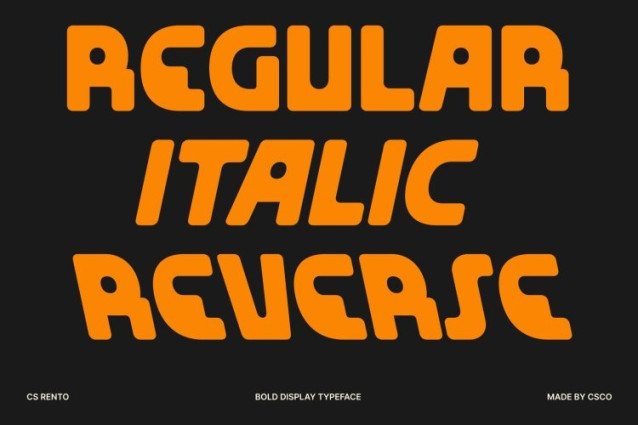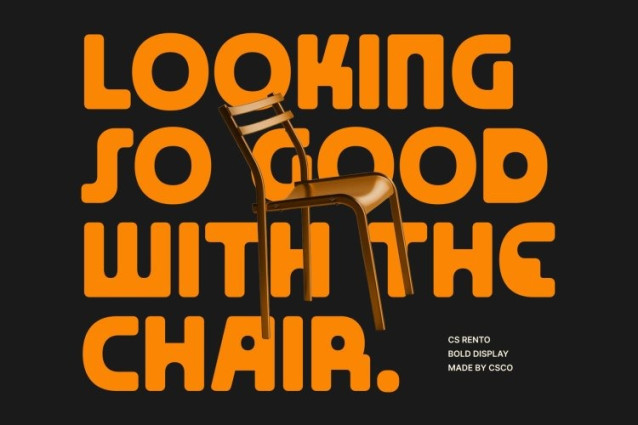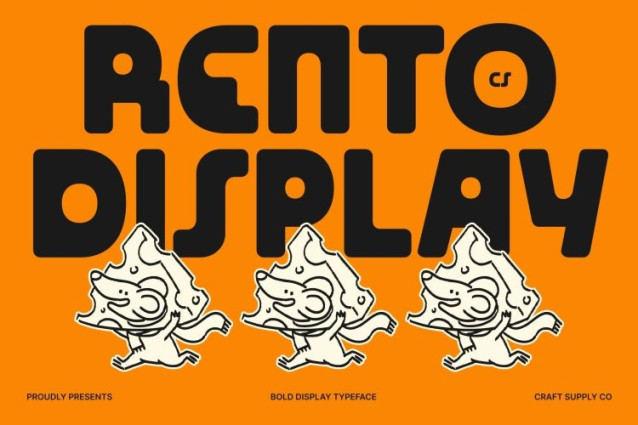
CS Rento Font
CS Rento Font This is a bold display font built from strong geometric shapes combined with smooth, soft lines. Its unique character designs create a confident visual impact, while the rounded details introduce a calming and approachable feel. This thoughtful balance allows the font to stand out clearly without appearing rigid or aggressive.
Futuristic Vibe with Modern Style
Blending futuristic influence with contemporary aesthetics, presents a clean and forward-looking appearance. The structured geometry gives it a modern, tech-inspired foundation, while the gentle curves add warmth and personality. This fusion results in a typeface that feels innovative yet friendly, perfect for modern creative expression.
Fresh, Cheerful, and Cool Impression
This font carries a fresh and cheerful personality with a cool, modern edge. Its playful geometry and softened forms create an engaging and optimistic tone, making it ideal for designs that aim to feel positive, stylish, and inviting. The font delivers energy while maintaining visual harmony.
Perfect for Titles and Creative Design
Designed for display use, excels in titles, posters, branding, packaging, and digital visuals. It brings clarity, originality, and a calm futuristic charm to any project, making it a versatile choice for designers who want bold typography with a fresh, engaging, and modern style.